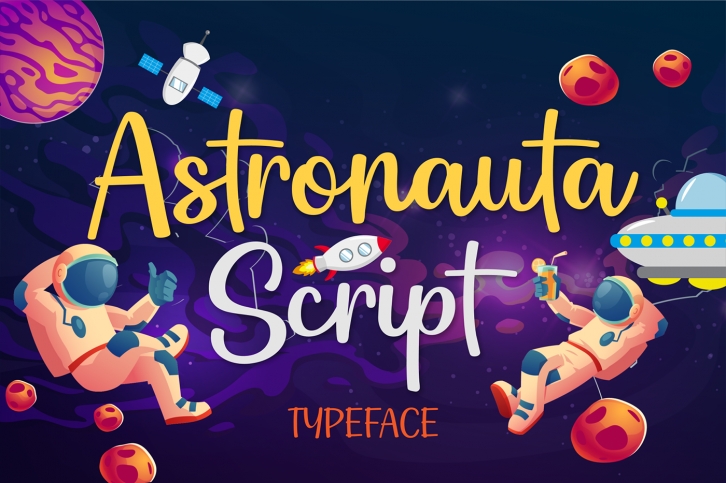
Astronauta is a flowing and beautiful handwritten font, made with the help of a brush pen. It will elevate a wide range of design projects to the highest level, be it branding, headings, wedding designs, invitations, signatures, logos, labels, and much more!